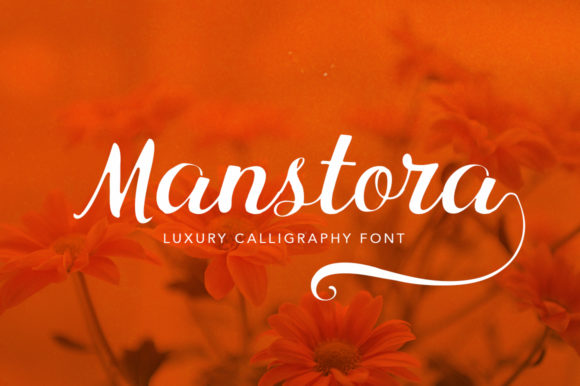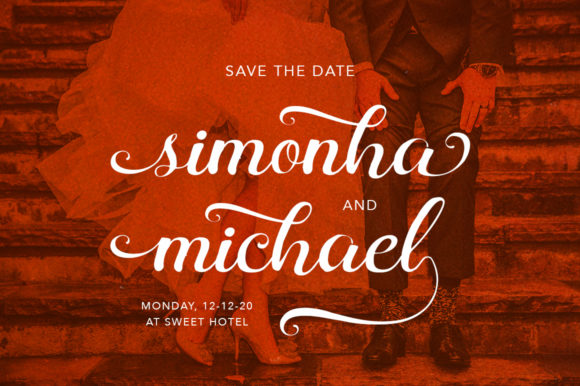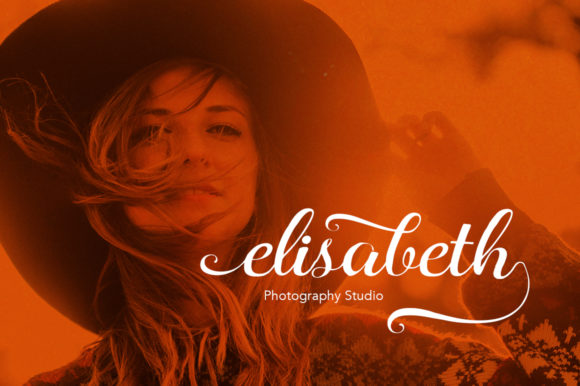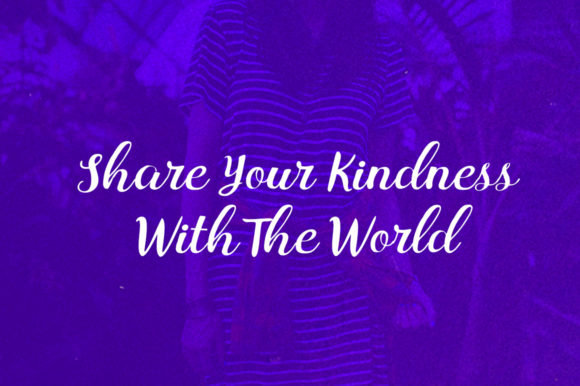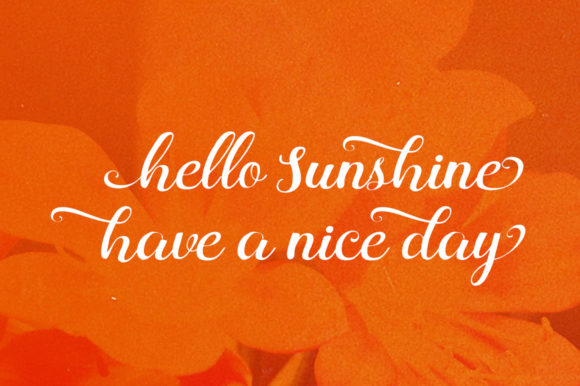
Manstora Font
About Manstora Font
Manstora updates classic calligraphy with a modern twist. It will turn any design projects into an authentic piece of art.